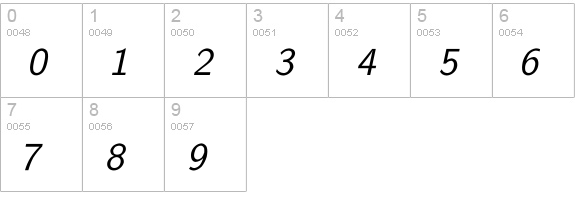
CM_SansSerif Slanted Font Details
CM_SansSerif Slanted is a modern and stylish typeface that exudes sophistication and elegance. Its sleek slanted design adds a touch of flair to any project, making it perfect for both professional and creative use. The clean lines and sharp angles of this font make it versatile and easy to read, while still maintaining a sense of uniqueness. What sets CM_SansSerif Slanted apart is not only its aesthetic appeal, but also the fact that it is available for free download at FontsMarket.com. This means that you can effortlessly enhance your designs with this high-quality font without breaking the bank. Whether you're working on a logo, website, or print material, CM_SansSerif Slanted is sure to make a lasting impression. Download this font today and elevate your projects with its modern charm and timeless style.